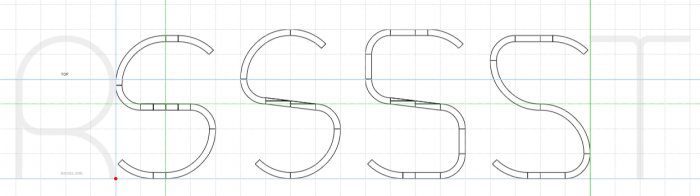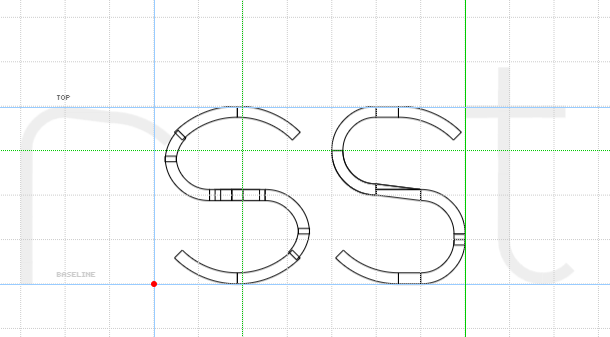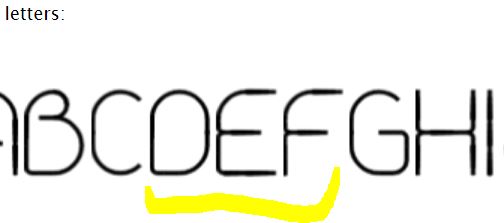
• This was an attempt for a thin line rounded numbers based on straight circles, but could not manage to consistently expand on the idea trough a whole font. Originaly meant for the competition, but it was not worth it at first.
I still cant be satisfied with the S and s, any opinions are welcome
Cute font, why isn't it for the competition? The numbers in it are not bad, only the serif at 7 is superfluous, it seems to me, and in such minuscule numbers usually 3 and 5 are lowered down, and 4, on the contrary, is lowered down.
Thank you for your words, I am not satisfied with the curent state, where there is a not really consistent mix of different ideas, like open vs closed gaps or strictly round vs flattened tops and bottoms, wider vs narrower lover case. I have to play some more. Maybe I will put it in competition if I wont come with something different meanwhile.
@Dmitriy Sychiov (Sychoff) you were right about the only serif in whole font. I tend to use it even in my handwriting, but this looks better without it.
I am curious what would be peoples opinions about these 3 marked letters. Would it improve the font consistence or make it look silly?
I like the new DEF! And the overall font too.
Thank you for your feedback. I still felt like, I have rushed it back then and did not play enough with ideas.
Hey, this is really good work. I tried making a thin font - "Albireo" and I had a lot of angular glyphs I didn't really like. Your solutions to "s" and "7" are especially elegant. 10/10
@winty5 Thank you for your words. I have seen the Albireo font, it looks nice too and I can understand all the trouble you had with it :-). I would gladly have the angular elements on glyphs like M,N,Z, trouble is to make the connection to round elements at least from distance appear seamless. We can make various slope angles, but only have 1/4 and 1/8 (90° and 45°) arcs to connect to.
Yes, definitely. I've been playing around with and remaking some of the letters, which is a challenging but entertaining puzzle as always